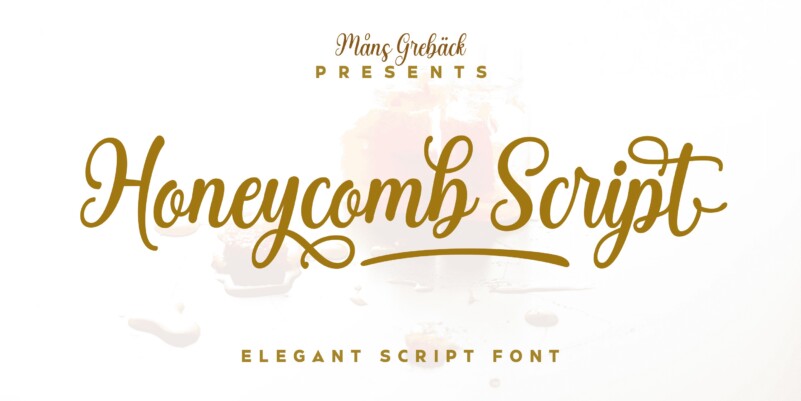
Honeycomb Script Font
Honeycomb Script Font is a varied baseline handwritten script font designed to convey elegance and style. The font offers a cute and quirky aesthetic, capturing the magical essence of the natural world’s sweetest architect. It comes in six high-quality styles: Thin, Regular, Bold, and their italic versions, giving you the flexibility to adapt to any design context. Use one or multiple underscores _ anywhere in a word to add a decorative underline, or try using # before or after any word to make lovely swashes. The font is built with advanced OpenType functionality and has a guaranteed top-notch quality, containing stylistic and contextual alternates, ligatures, and more features; all to give you full control and customizability. It has extensive lingual support, covering all Latin-based languages, from Northern Europe to South Africa, from America to South-East Asia. It contains all characters and symbols you’ll ever need, including all punctuation and numbers.